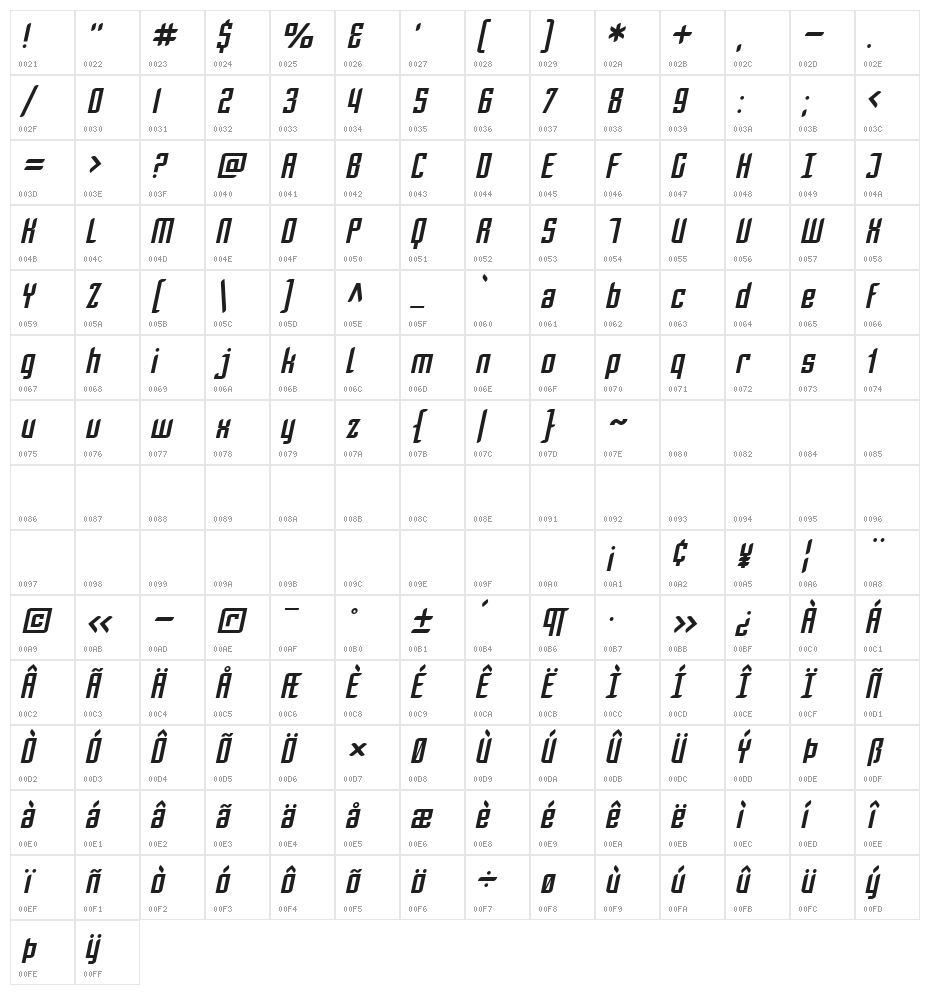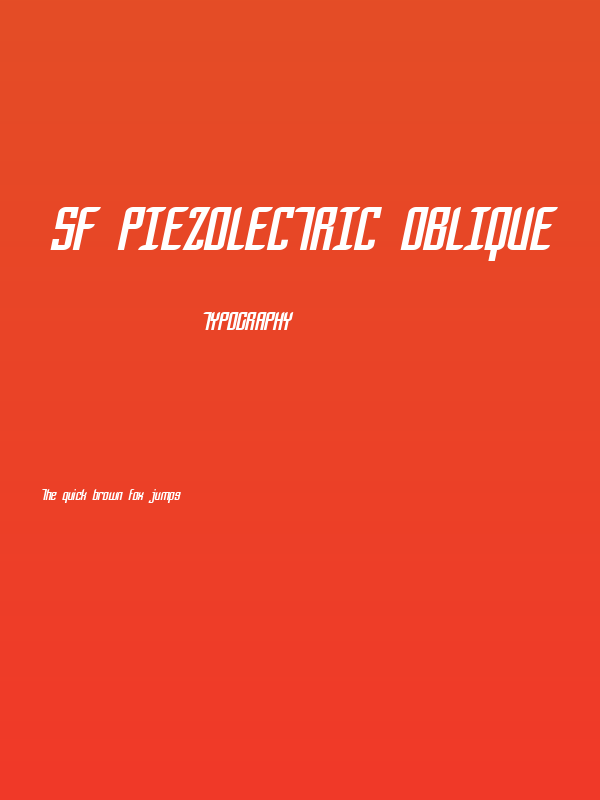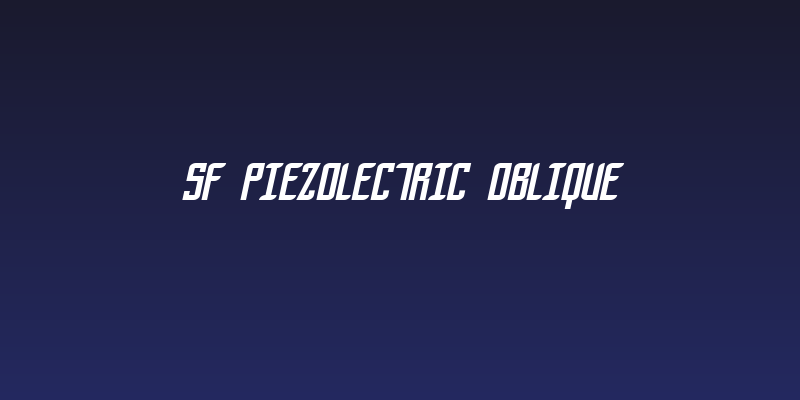
SF Piezolectric Oblique Font
SF Piezolectric Oblique Description
This font features a dynamic and futuristic design with a distinct oblique slant, giving it a sense of motion and energy. The characters are bold and angular, with sharp edges and a consistent stroke width that conveys a sense of precision and modernity. The uppercase and lowercase letters maintain a uniform style, while the numerals and special characters complement the overall aesthetic. The font's geometric structure and slanted orientation make it ideal for projects that require a contemporary and tech-savvy appearance.
| Use Case | Headlines, Logos, Display text |
| Proposed Projects | Ideal for technology branding, sci-fi themed designs, video game interfaces, and modern advertising campaigns. |